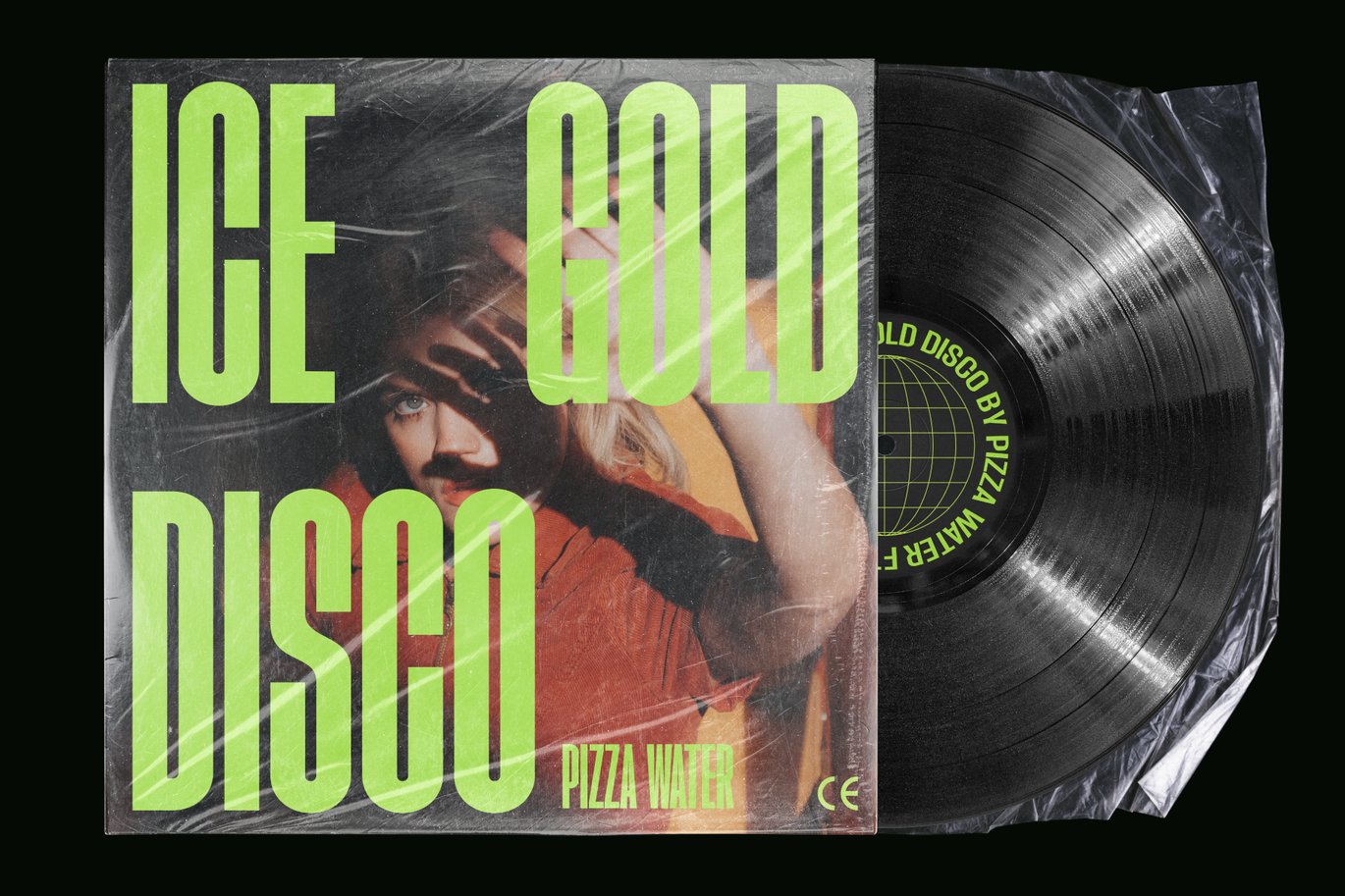
Agharti Family Font
Agharti Family Font is a versatile typeface ideal for various projects, including Sans-Serif, logos, branding, posters, blog headers, advertisements. The free version includes a full set of uppercase and lowercase letters, available in OTF, TTF, WOFF format.